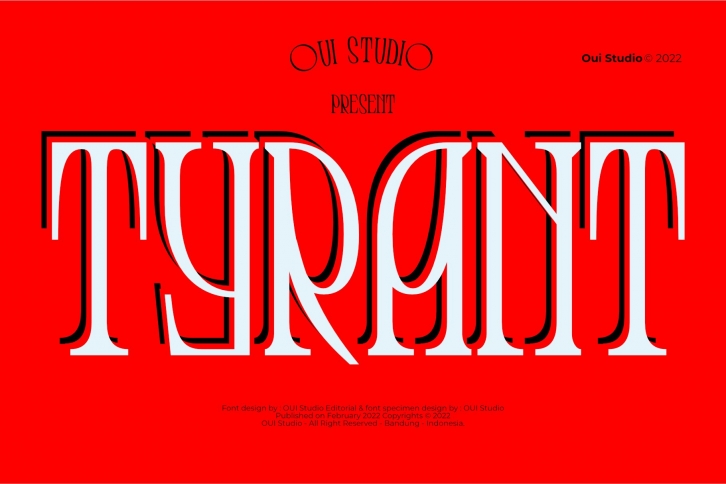
The 'Tyrant' font is coming, a serif display font with Celtic vibes.
Tyrant is very inspired by art nouveau.
Tyrant has a special character in some glyphs, you can use that and make your work more splendid.